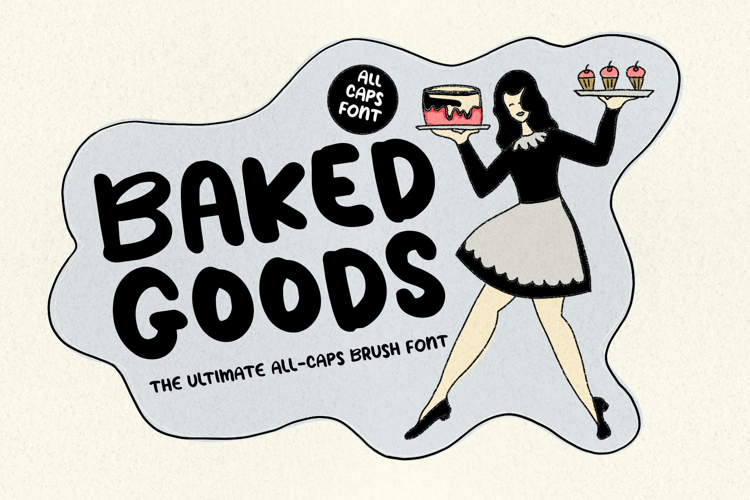
Add a splash of warmth and playful energy to your designs with Baked Goods! This is a chunky, cheerful all-caps display font that brings the unmistakable charm of handmade, painted signage straight to your screen. Crafted with casual brush strokes and plenty of personality, it captures that perfectly imperfect, organic, handwritten feel. [1]
Baked Goods is friendly, bold, and incredibly expressive. Its thick, fluid strokes give it a sweet, bouncy rhythm that feels like it was painted fresh this morning. Whether you are designing a cozy café menu, playful food packaging, or vibrant posters, this font infuses your work with a joyful, homemade touch.